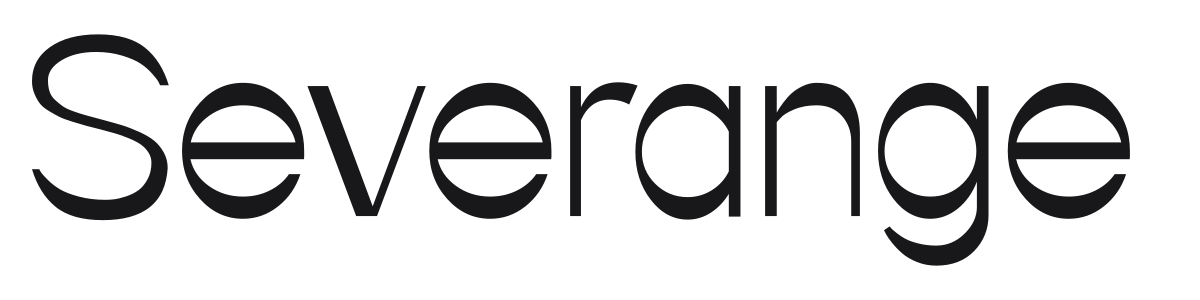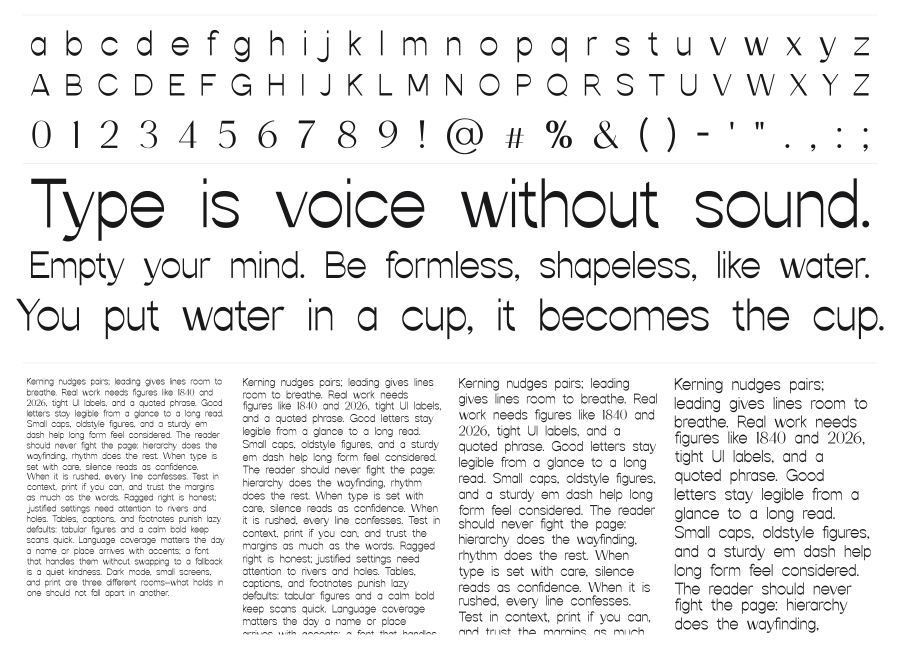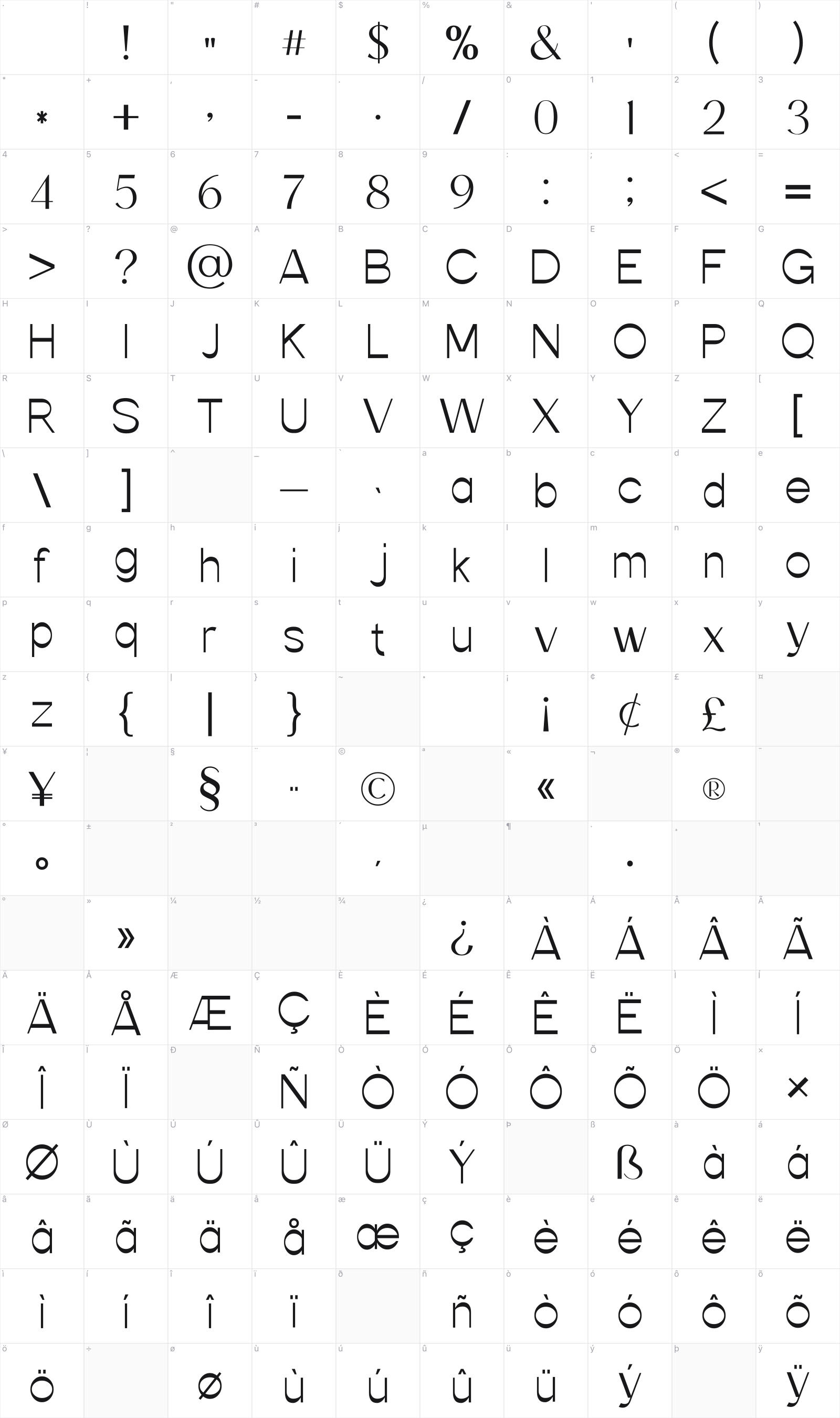
Severange
Severange is a light geometric sans-serif with a quietly distinctive personality, built on circular construction and airy proportions. Certain terminals dip inward in a circular notch, a subtle detail that gives the design its character without becoming decorative. Strong for fashion branding, editorial headlines, and any identity work that wants minimalism with a little warmth.